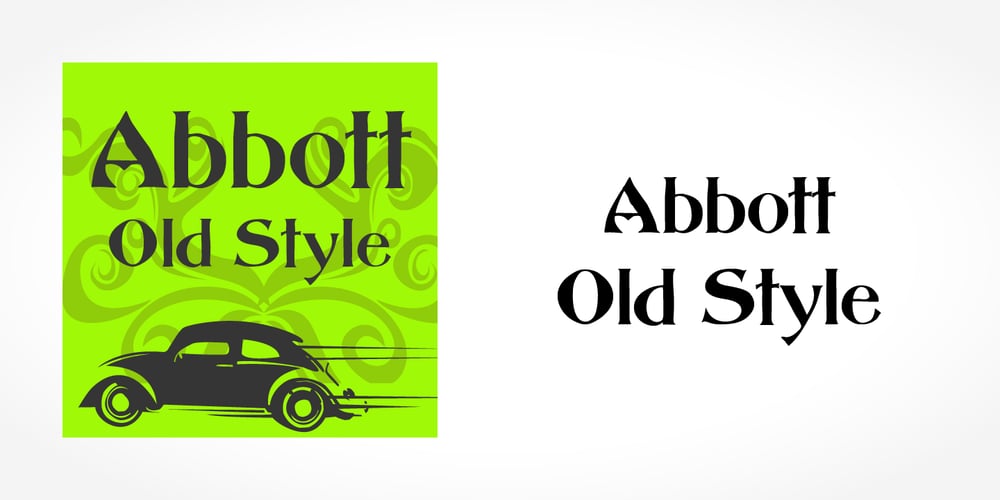
Abbott Old Style Font Family was designed by Joseph W. Phinney and published by SoftMaker. Abbott Old Style contains 1 styles and family package options. SoftMaker’s Abbott Old Style is a revival of Joseph W. Phinney’s typeface of the same name, a modified serif typeface. It is charmingly antique and exotic.